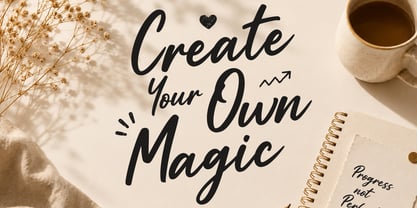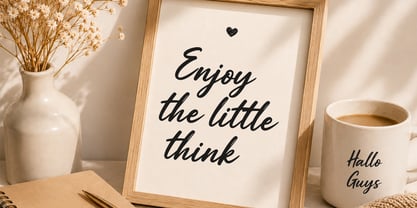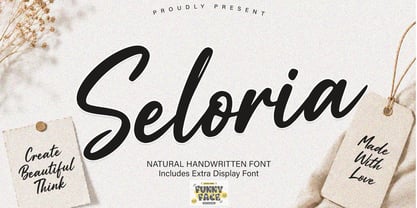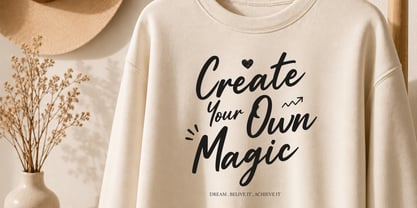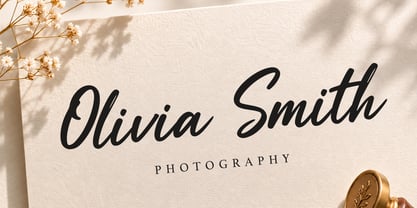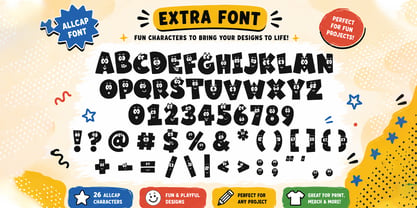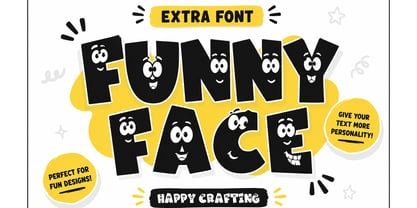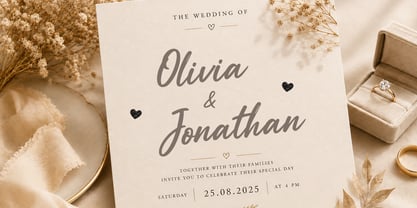
Seloria
The Seloria Font Family was designed by Muhammad Zaini and published by Cocodesign. Seloria contains 2 styles and family package options. More about this family
Seloria – Natural Handwritten Script Font
Seloria is a natural handwritten script font with smooth curves, clean strokes, and an effortless flow. Designed to create an authentic handwritten appearance, it combines elegance and readability, making it suitable for a wide range of creative applications.
This package also includes a bonus display font, providing additional flexibility for creating eye-catching headlines, branding, and playful typography combinations.